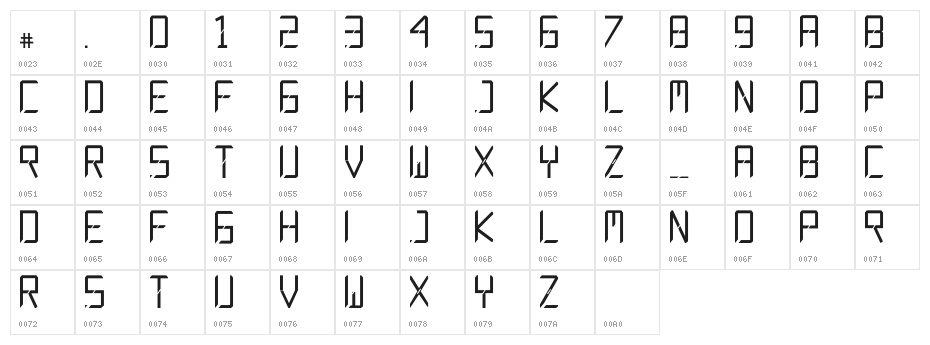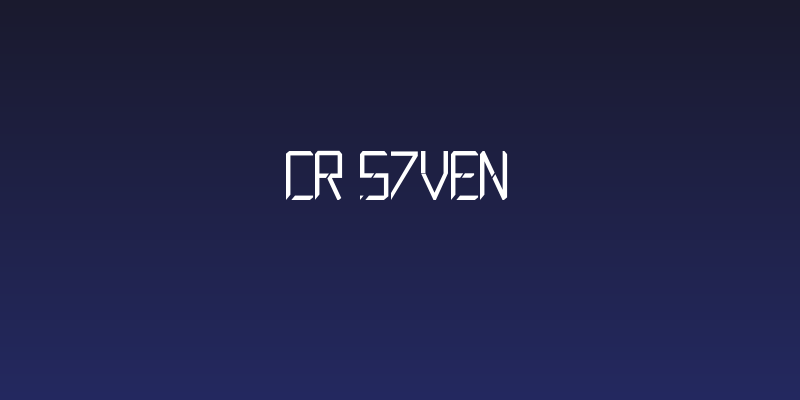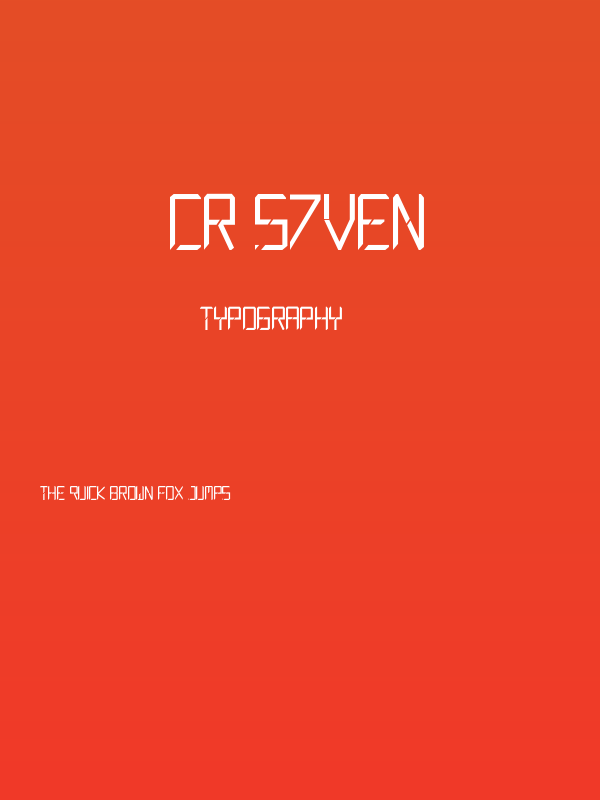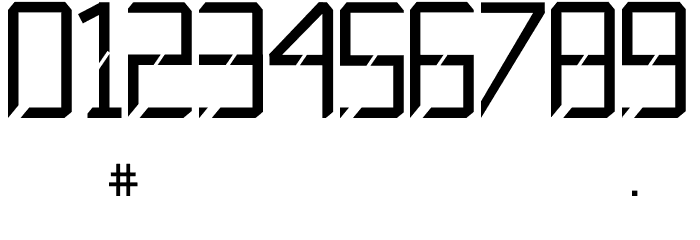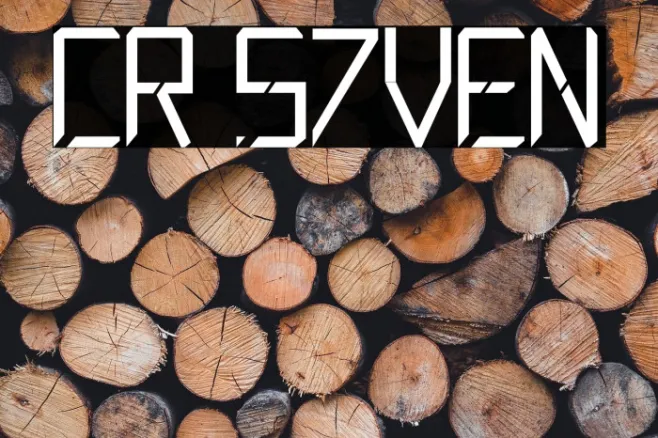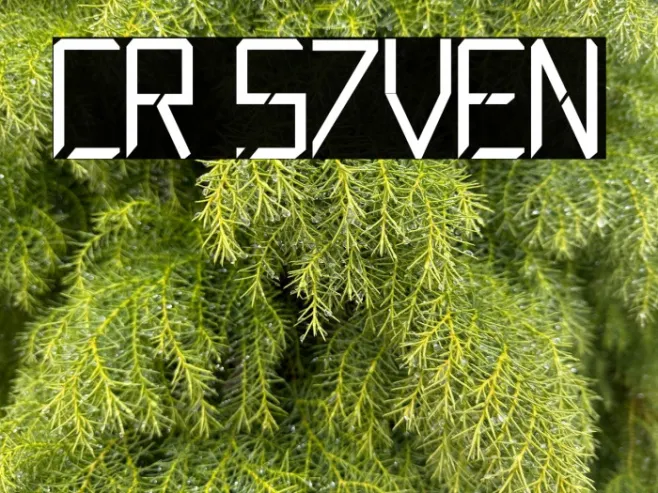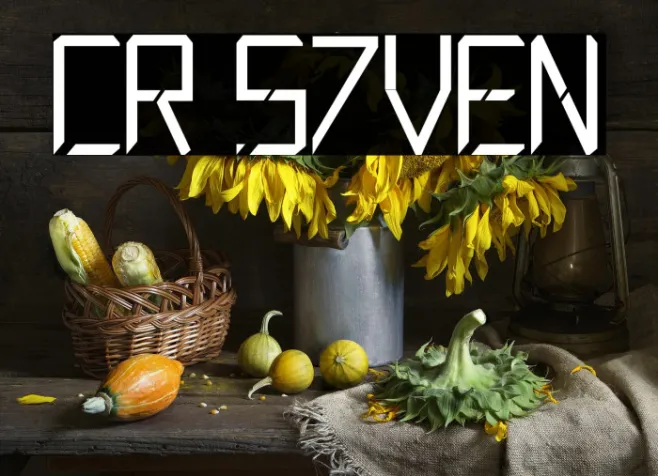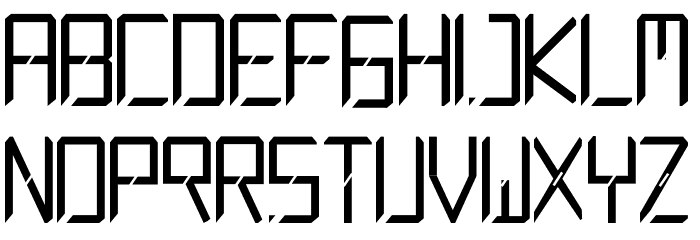
CR S7VEN Font
CR S7VEN Description
This font features a futuristic and angular design, characterized by sharp edges and geometric shapes. The uppercase letters are bold and structured, with a consistent height and width that gives a uniform appearance. The lowercase letters maintain the same angular style, ensuring cohesion across the typeface. Numbers are similarly styled, with distinct, easily recognizable forms. The special characters, including symbols like # and ., are integrated seamlessly into the design, maintaining the overall aesthetic. This font's unique style makes it stand out, ideal for projects that require a modern and edgy look.